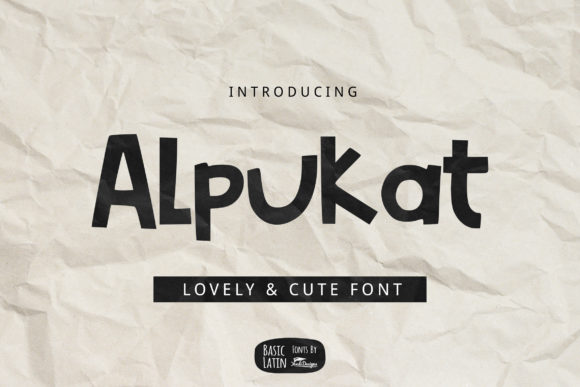
The Alpukat Font: A Quirky and Lovely Display Font to Elevate Your Designs
An Honest Review of Alpukat Font
So, what makes Alpukat special? Here are some things I love about this font:
- ✨ Unique and quirky design that’s perfect for display text
- ✅ Highly legible, even at larger font sizes
- 💡 Supports OpenType features, glyphs, and stylistic alternates
- 🎨 Versatile and adaptable to various design styles
Of course, no font is perfect, and Alpukat has a few quirks:
- 🤔 May not be suitable for body text or smaller font sizes
- ⚠️ Limited character set, which may not support certain languages
The Story Behind Alpukat Font
Alpukat was designed by a talented type designer who’s passionate about creating unique and functional fonts. The inspiration behind Alpukat came from the designer’s love of quirky and offbeat typography. The result is a font that’s both playful and sophisticated.
| Font Name | Alpukat Font |
| Author | YandiDesigns |
| What is the best use for Alpukat font? | Alpukat is perfect for display text, headlines, and titles. It’s not recommended for body text or smaller font sizes. |
| Does Alpukat support OpenType features? | Yes, Alpukat supports OpenType features, including stylistic alternates and glyphs. |